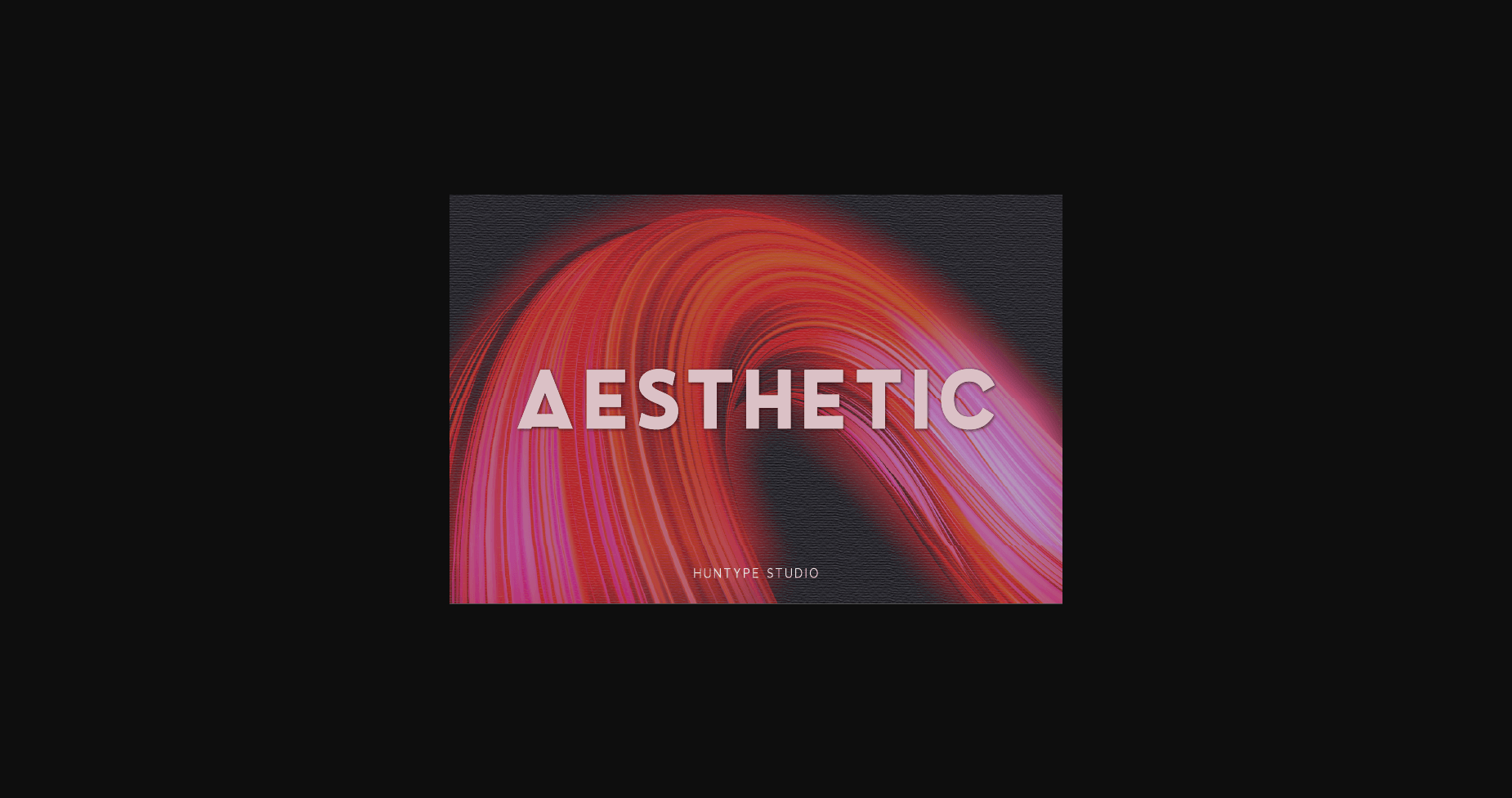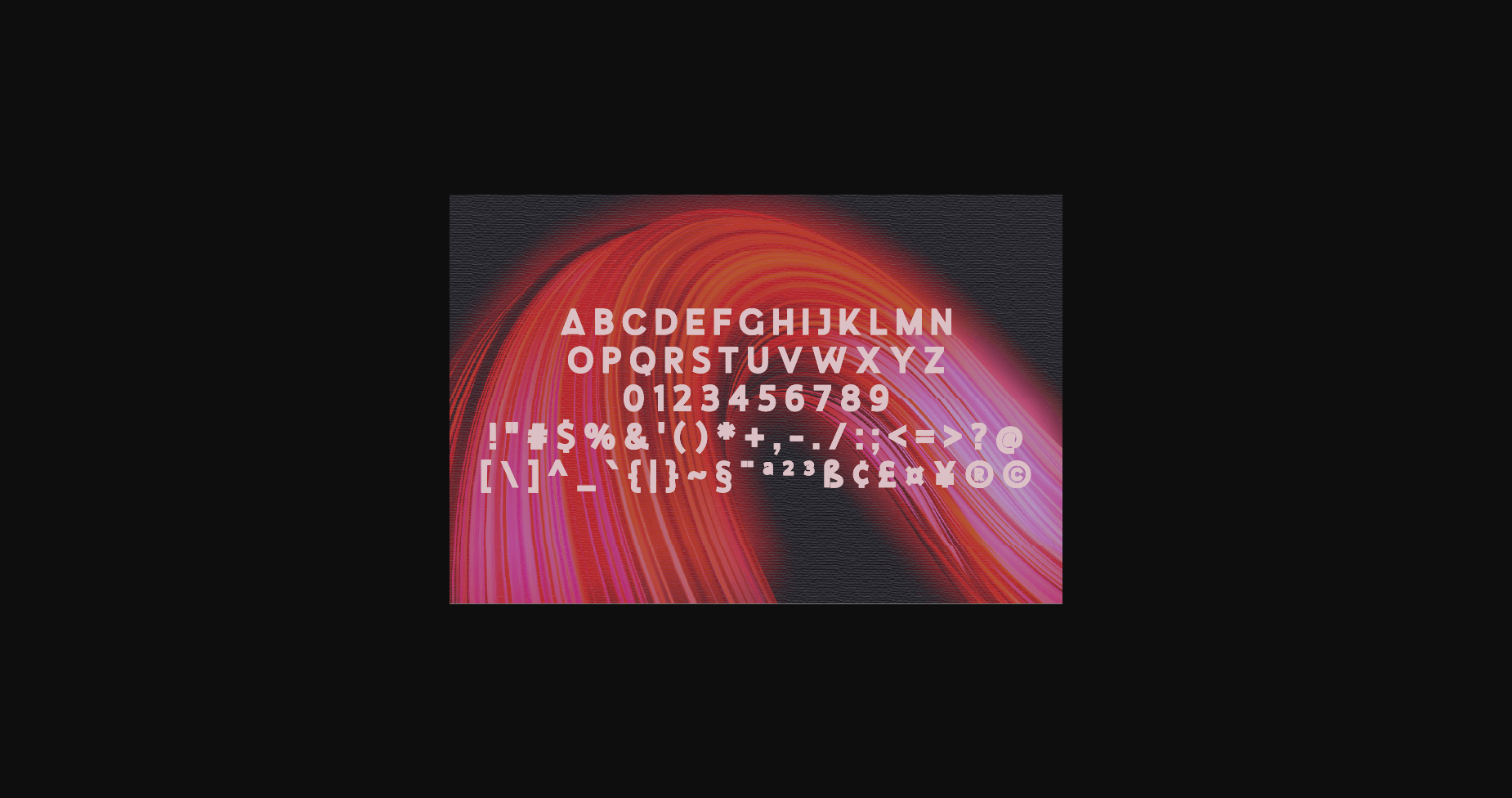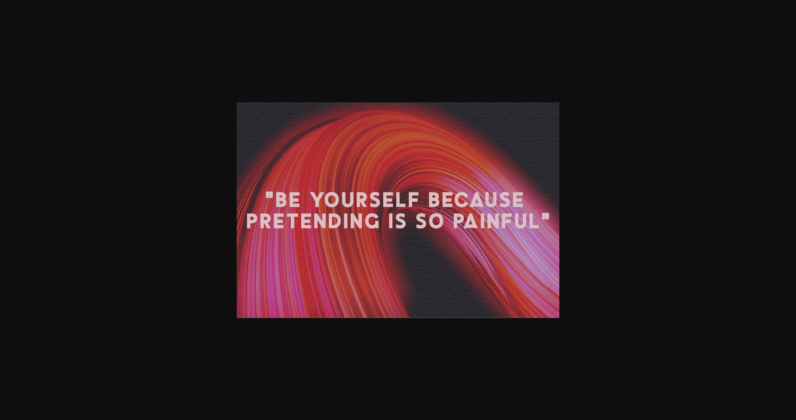
About Aesthetic Font
Aesthetic is an all-caps sans serif. It is versatile and looks great in just about any context. With smooth and clean lines and just a touch of contrast, Aesthetic works beautifully for logos, branding, and web headings.